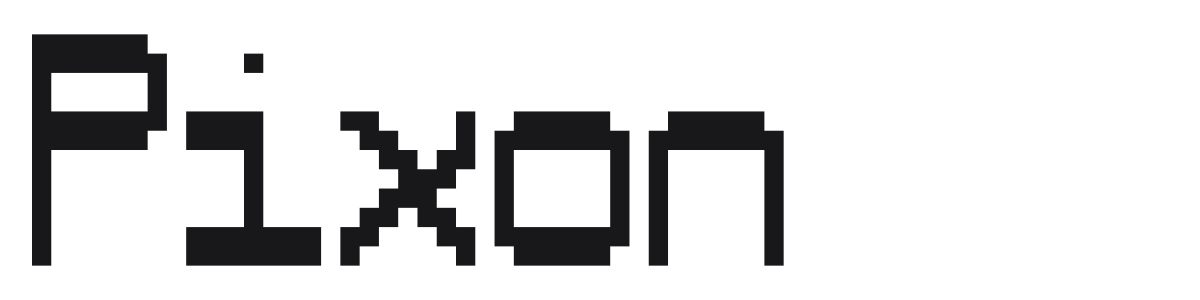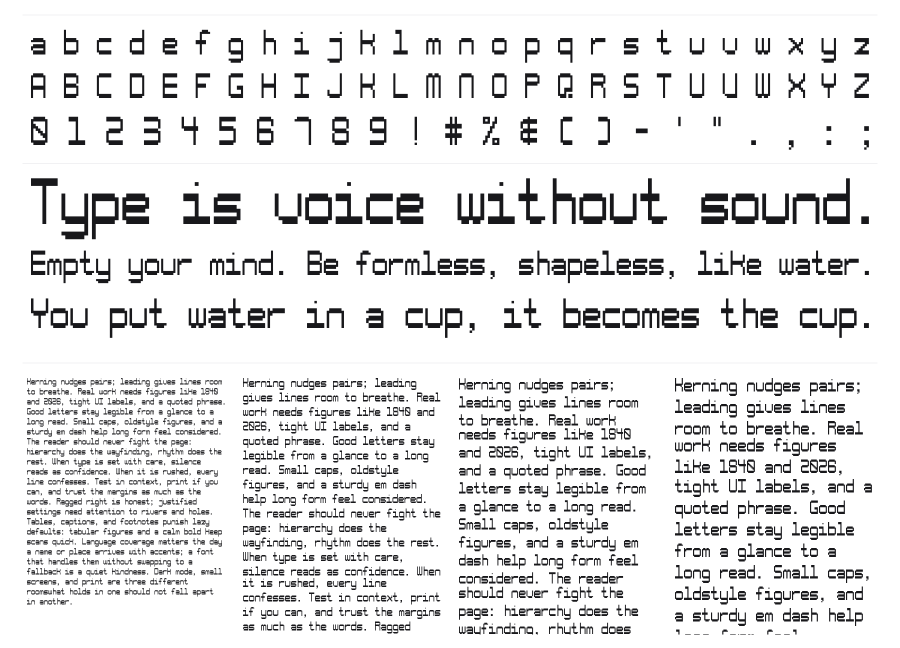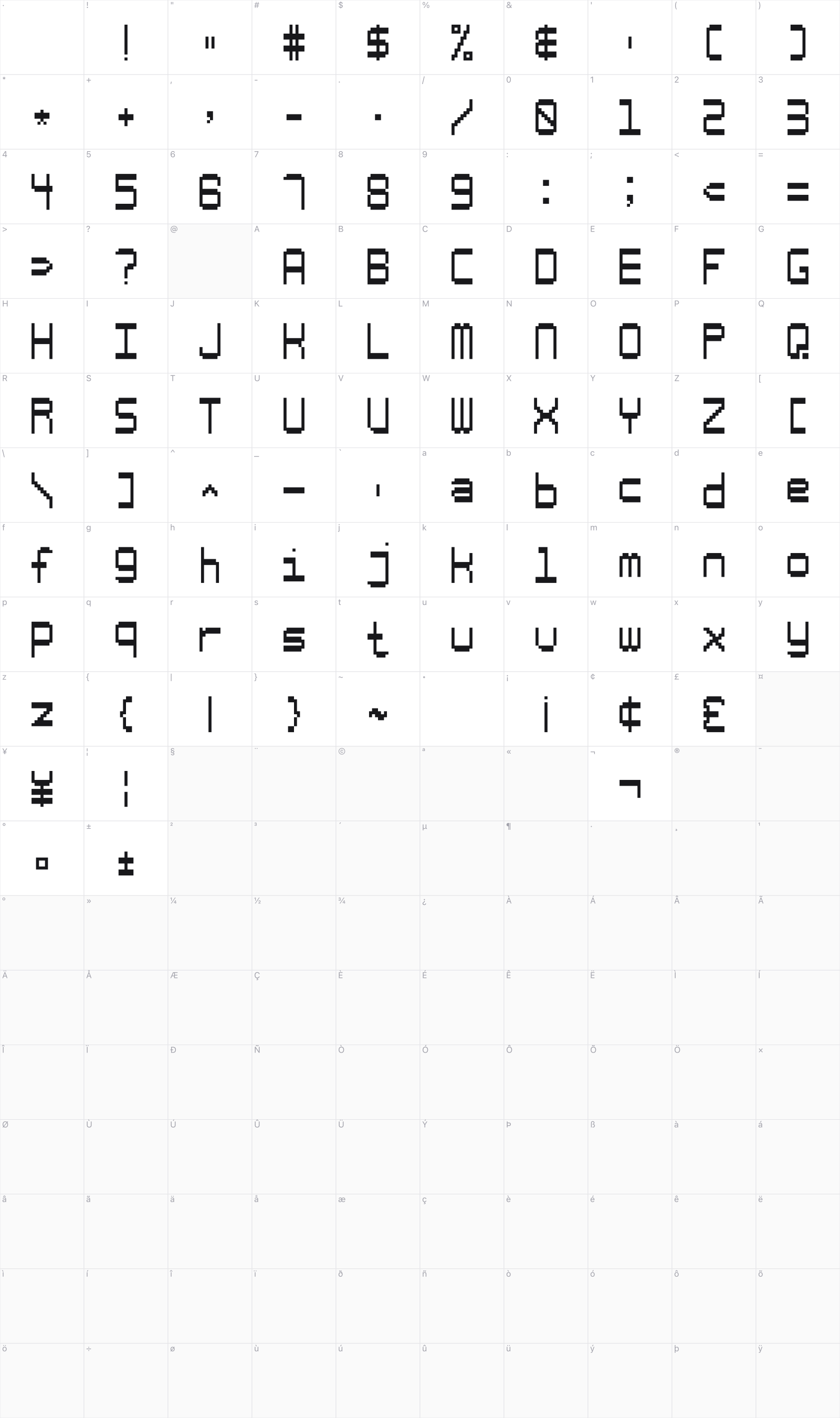
Pixon
by Avrex
Pixon is a bitmap pixel font built from chunky rectangular pixel units with gently rounded corners. The sturdy monoweight strokes and grid-locked construction give it an authentic 8-bit feel without feeling dusty or dated. It sits comfortably in gaming interfaces, retro-themed branding, and any project that wants a digital edge.